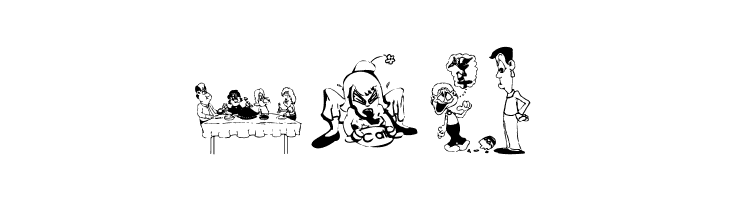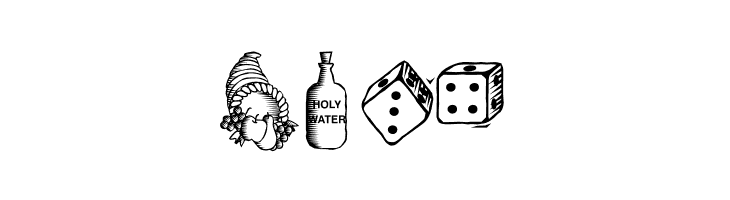
Angryblue Font
Font by www.angryblue.com
A raw, edgy font with a hand-drawn, rebellious style.
Luckiest Guy Font
Font by Astigmatic One Eye Typographic Institute - Brian J. Bonislawsky - astigmatic.com
A playful, bold font with thick, rounded letters and a comic-like style.
*Lucky Luke* Font
Font by Alphabet & Type: Typography & Graphic - Paolo Vannucci - www.alphabetype.it
A bold slab serif font with a classic Western style.
Lucky Skirt Regular Font
Font by Niskala Huruf
A playful, bold font with rounded edges and consistent thickness.
Lucky Turns Font
A bold, expressive handwritten font with brush-like strokes and dynamic flow.
LuckyCider Font
Font by Only Fonts
A playful, bold script font with a hand-drawn, whimsical style.
Lucky Font Font
A whimsical font with characters inside four-leaf clovers, ideal for decorative projects.
Lucky Goldfish DEMO Regular Font
Hanoded - David Kerkhoff - www.hanodedfonts.com
A playful and bold font with whimsical, fish-shaped characters.
LUCKY TYPEWRITER Font
Font by
krraaa
A vintage typewriter-style font with a monospaced, distressed appearance.
KOI8 Kurier Fixed Font
A monospaced font with a clean, structured, and uniform appearance.
Airboy Font
A playful, hand-drawn font with whimsical, irregular characters.
WhiteyFord Font
A playful, handwritten font with dynamic strokes and a casual feel.
Vtks good luck for you Font
A bold, distressed font with a grunge texture and rugged appearance.
Lucky Charms Font
Font by Blue Vinyl - Jess Latham - www.bvfonts.com
A decorative set of lucky charm illustrations with a whimsical, hand-drawn style.
KG Luck of the Irish Font
Font by www.kimberlygeswein.com - Kimberly Geswein
A playful, hand-drawn font with tall, narrow letters and rounded edges.
Lucky Dino Font
Font by Miftah Arzaq
A playful, bubbly font with bold, rounded characters and circular cutouts.
Hussar Woodtype UltraBlack Oblique Font
Gracetypestudio
A bold, oblique font with a strong, modern presence.
My Lucky Penny Font
Font by Kimberly Geswein - kimberlygeswein.com
A playful, casual handwritten font with smooth, flowing curves.
AlienMushrooms Font